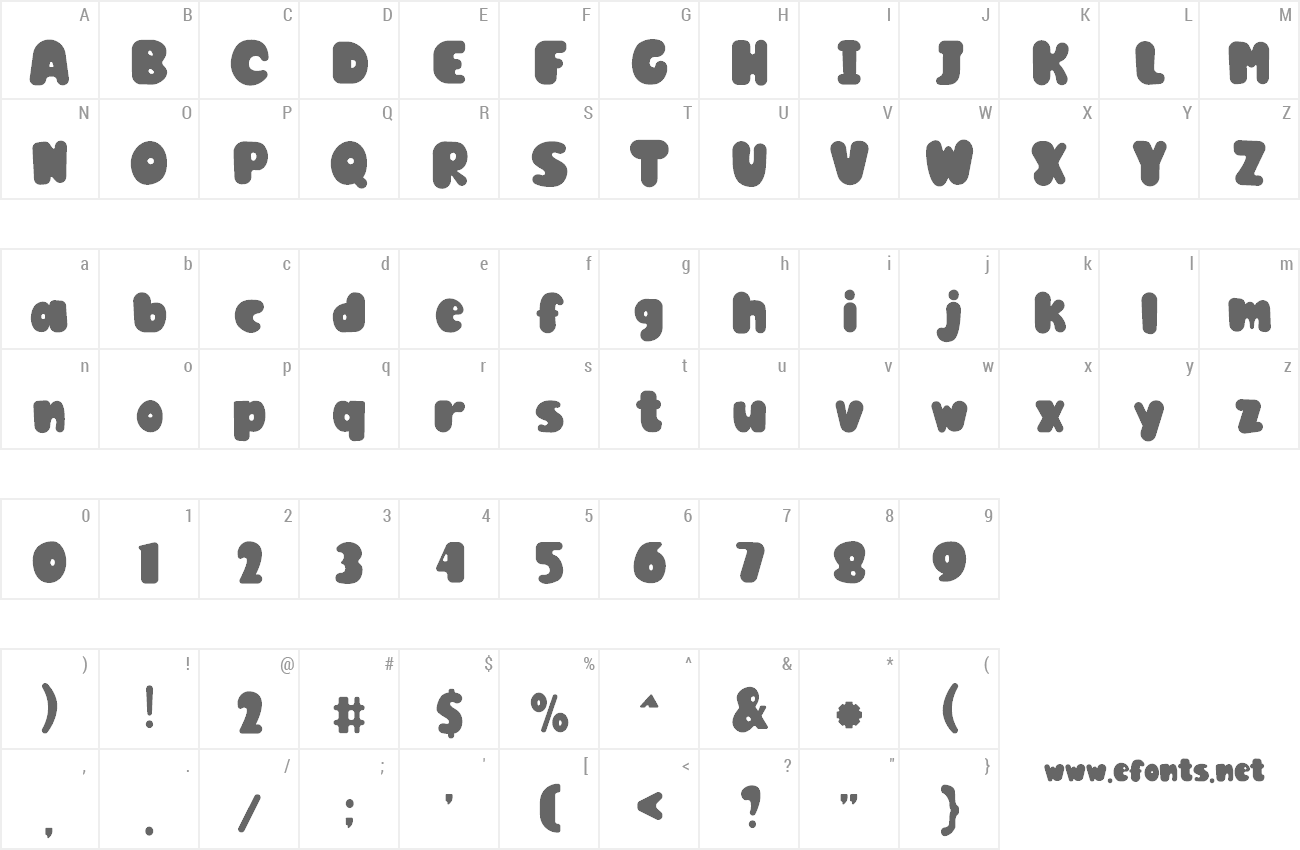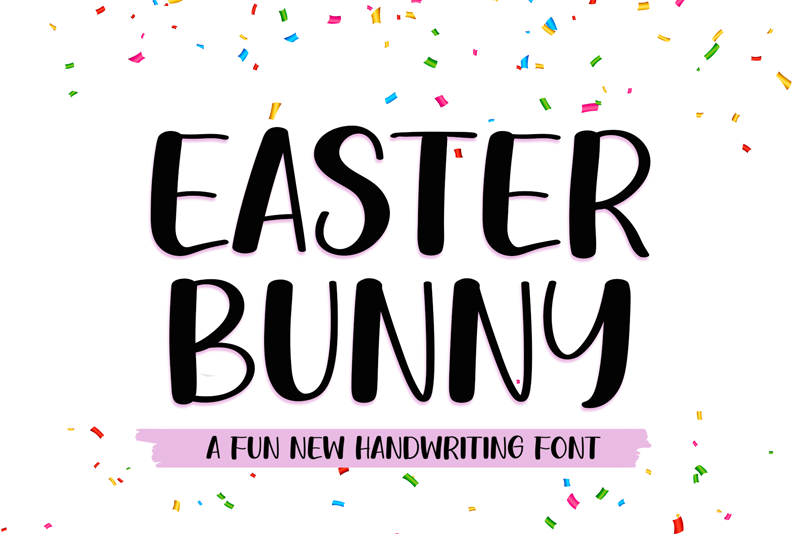
Easter Bunny is a bold and cool display font that looks modern and playful. Add this funky font to your creative ideas, and notice how it makes them stand out! Attention : Easter Bunny handwriting Font is prohibited to use this font for commercial purposes or for profit without the permission of the author/admin, without being known to use this font without permission, will be subject to sanctions 5x the specified price. This font is used only for demos (Demo license) If you want to use this font for commercial use please contact email: erikluluk0@gmail.com or click the link below: https://www.creativefabrica.com/product/easter-bunny-379/ref/745146/ If you want to see more other fonts, please click: https://www.creativefabrica.com/designer/erik-studio/ref/745146/ thanks. |